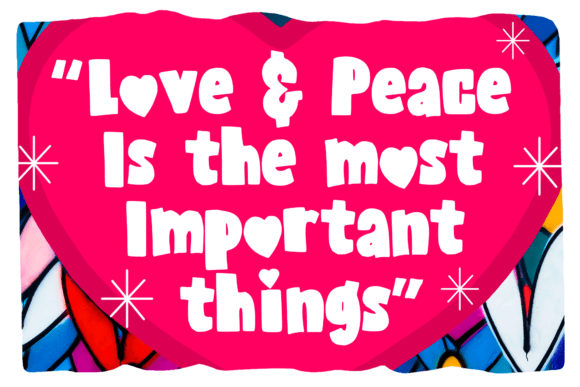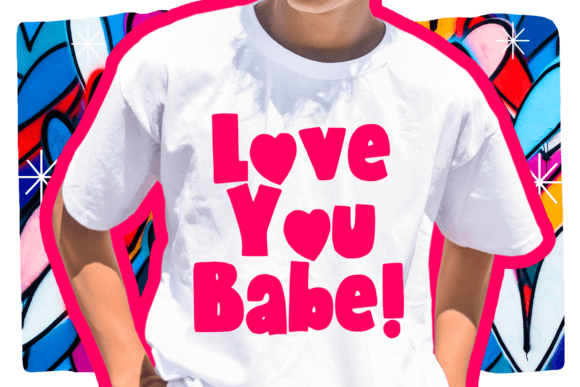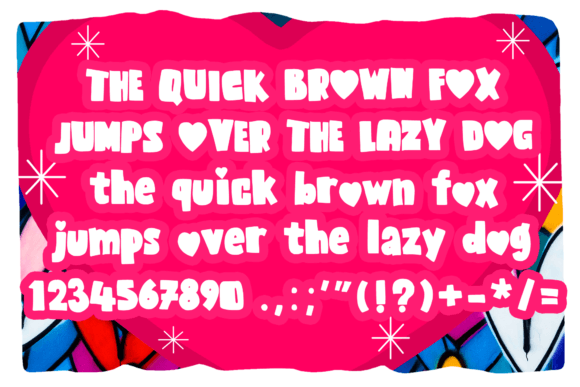
Introducing Bold Heart Font: The Perfect Addition to Your Design Collection
Are you on the hunt for a font that adds a touch of whimsy and playfulness to your designs? Look no further than Bold Heart Font! This bold and fun handwritten font is perfect for a wide range of projects, from t-shirts and book designs to packaging, greeting cards, stickers, and posters. Its incredibly versatile style makes it an excellent choice for designers and crafters looking to add a casual touch to their work.
What Makes Bold Heart Font So Special?
Bold Heart Font is more than just a font – it’s a design statement. Its bold and playful style is sure to capture the attention of your audience and leave a lasting impression. The font’s handwritten nature gives it a personal and approachable feel, making it perfect for designs that require a touch of warmth and personality.
One of the standout features of Bold Heart Font is its versatility. It can be used for a wide range of projects, from romantic designs for Valentine’s Day to casual designs for everyday use. The font’s bold style ensures that it will stand out against any background, making it perfect for designs that require a statement piece.
Why Choose Bold Heart Font for Your Designs?
There are many reasons why Bold Heart Font should be your go-to font for your design projects. Here are just a few:
- Perfect for Valentine’s Day designs: With its bold and playful style, Bold Heart Font is the perfect choice for Valentine’s Day designs. Use it to create romantic t-shirts, greeting cards, and posters that will capture the hearts of your audience.
- Versatile style: Bold Heart Font is incredibly versatile, making it perfect for a wide range of projects. Use it for casual designs, such as stickers and posters, or for more formal designs, such as book covers and packaging.
- Easy to read: Despite its bold style, Bold Heart Font is easy to read, making it perfect for designs that require a clear and concise message.
- Unique and eye-catching: Bold Heart Font is a unique and eye-catching font that will set your designs apart from the rest. Its bold style ensures that it will stand out against any background, making it perfect for designs that require a statement piece.
How to Use Bold Heart Font in Your Designs
Using Bold Heart Font in your designs is easy! Here are a few tips to get you started:
- Pair it with a simple background: Bold Heart Font is bold and playful, so it’s best paired with a simple background that won’t compete with the font.
- Use it for headlines: Bold Heart Font is perfect for headlines and titles. Use it to create eye-catching headings that will draw in your audience.
- Experiment with colors: Bold Heart Font looks great in a variety of colors. Experiment with different colors to find the one that works best for your design.
In conclusion, Bold Heart Font is a bold and fun handwritten font that is perfect for designers and crafters looking to add a touch of whimsy and playfulness to their designs. Its incredibly versatile style makes it an excellent choice for a wide range of projects, from t-shirts and book designs to packaging, greeting cards, stickers, and posters. With its bold and playful style, easy readability, and unique and eye-catching design, Bold Heart Font is sure to become a staple in your design collection.
So why wait? Fall in love with Bold Heart Font and use it to create lovely designs that will capture the hearts of your audience. Whether you’re a designer, crafter, or DIY enthusiast, Bold Heart Font is the perfect addition to your design collection.